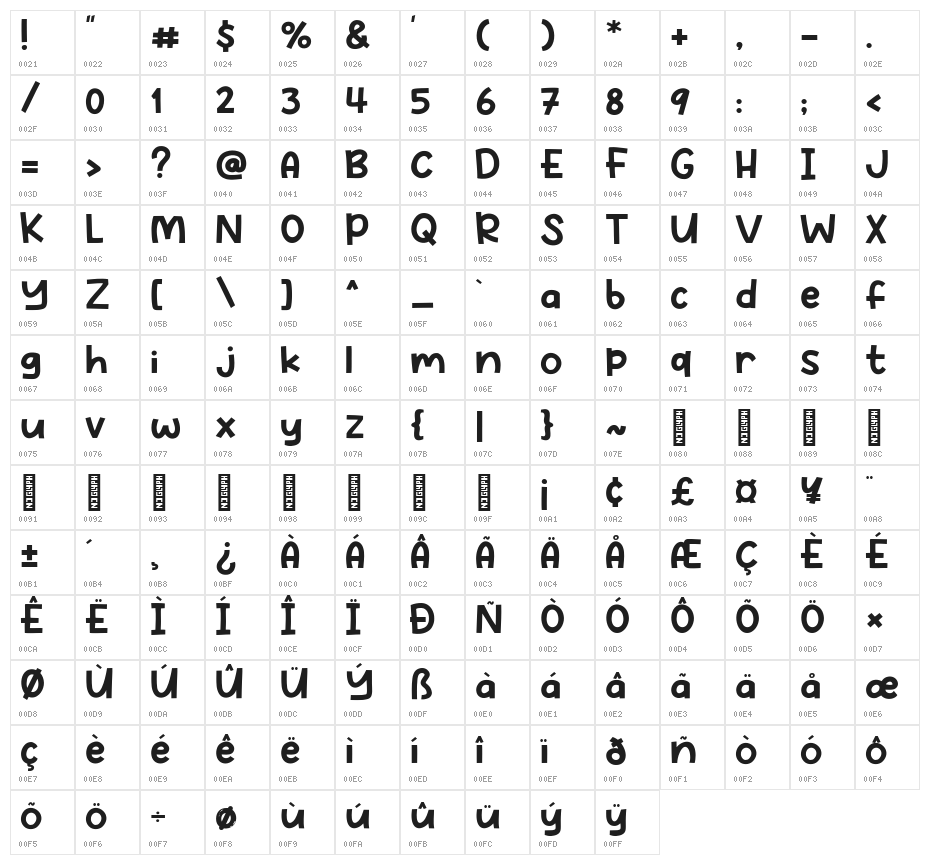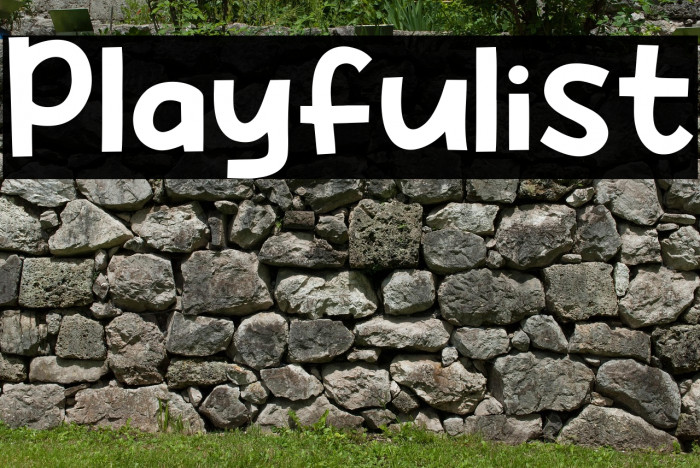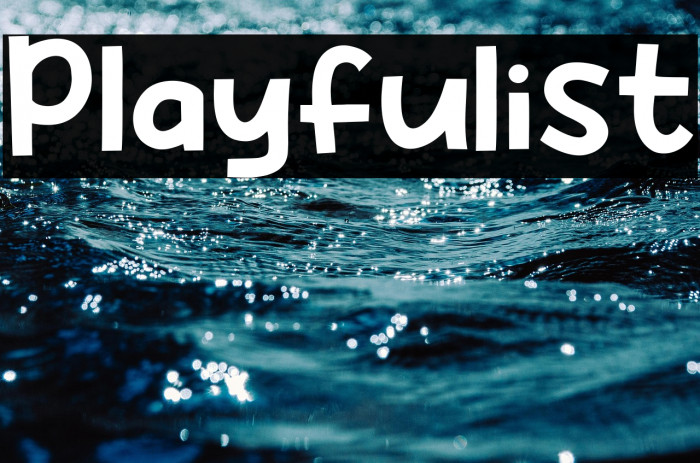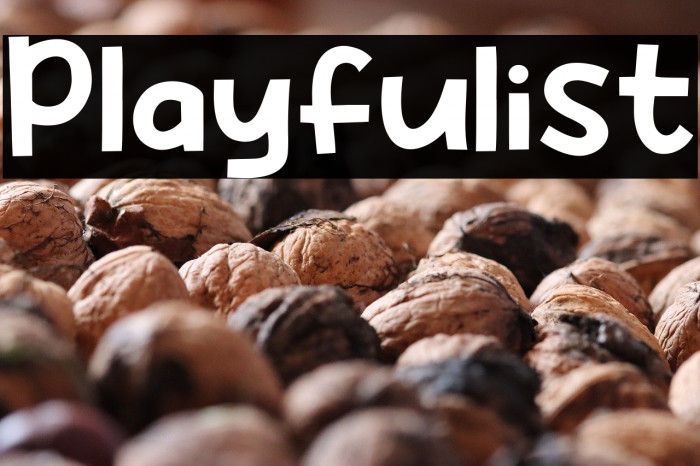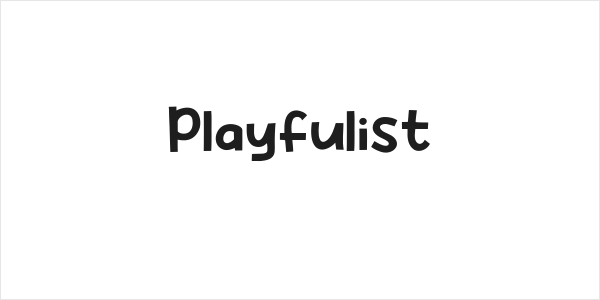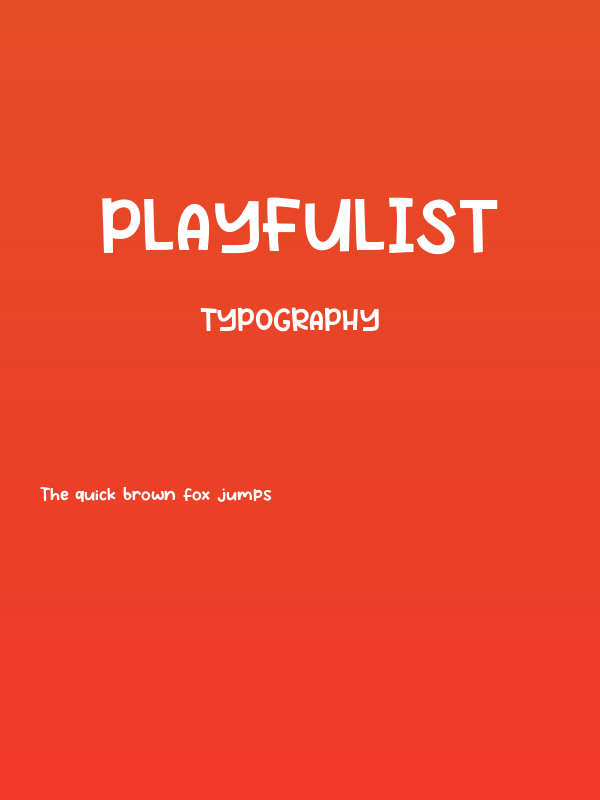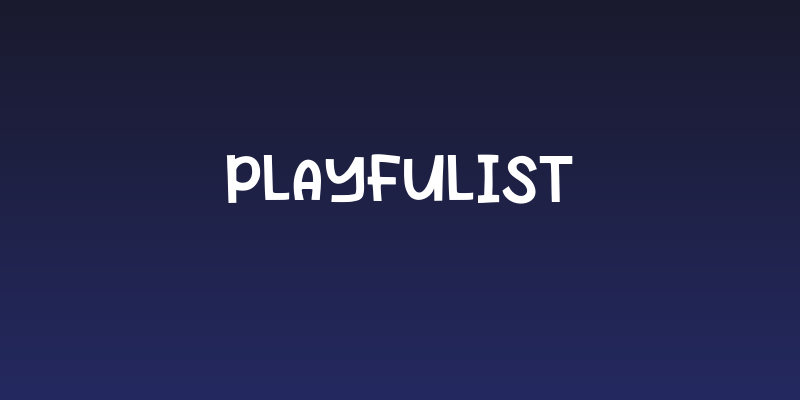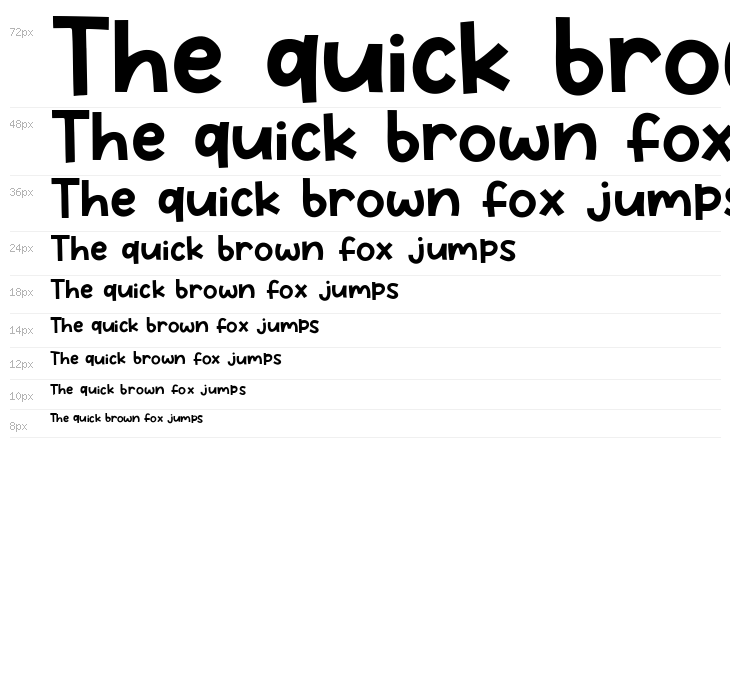
Playfulist Font
Playfulist Description
This font exudes a playful and whimsical charm, characterized by its bold and rounded letterforms. Each character has a slightly uneven baseline, adding to its informal and friendly appearance. The strokes are thick and consistent, giving it a strong presence while maintaining a sense of fun. The font includes a full set of uppercase and lowercase letters, numerals, and a variety of special characters, making it versatile for different uses. Its design is reminiscent of hand-drawn lettering, perfect for projects that require a touch of creativity and approachability.
PLAYFULIST UPPERCASE
PLAYFULIST LOWERCASE
PLAYFULIST OTHER CHARS
| Proposed Projects | Ideal for children's books, playful branding, casual invitations, and creative posters. |